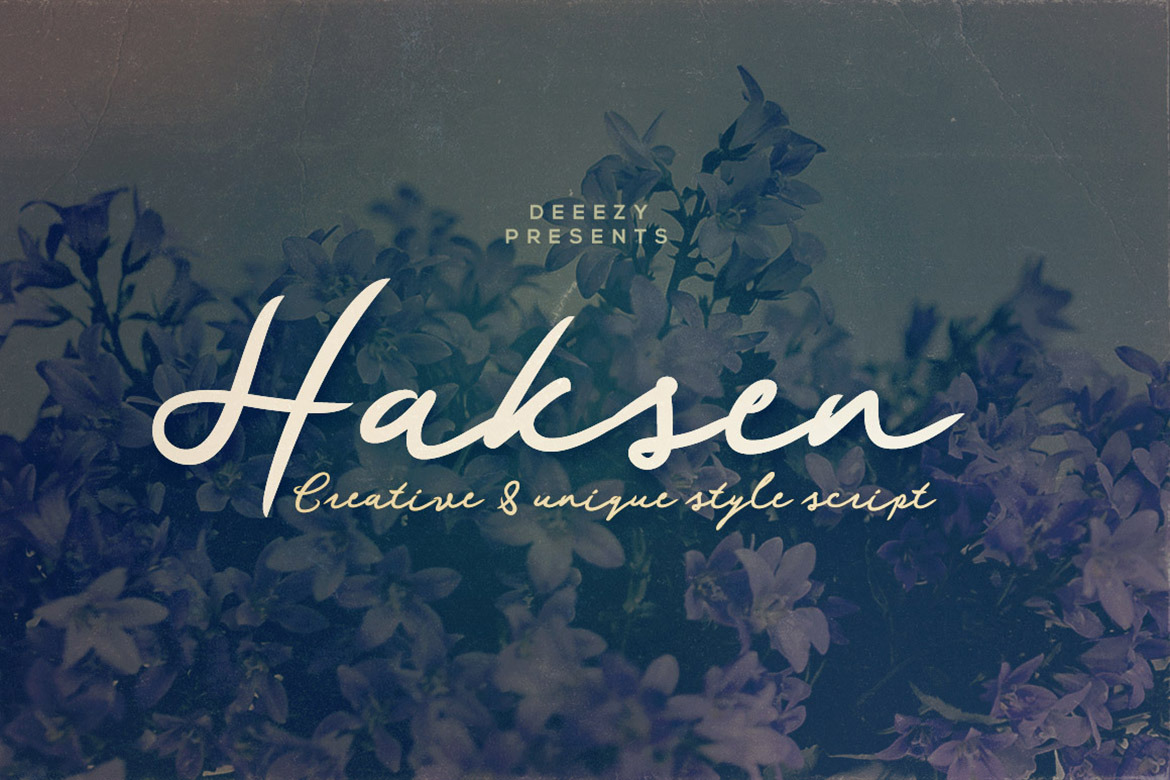
Haksen Script Font
Simple and handwritten or creative style script font for your new projects. With multi language support and lot of stylistic alternates & swashes. Enjoy ;)